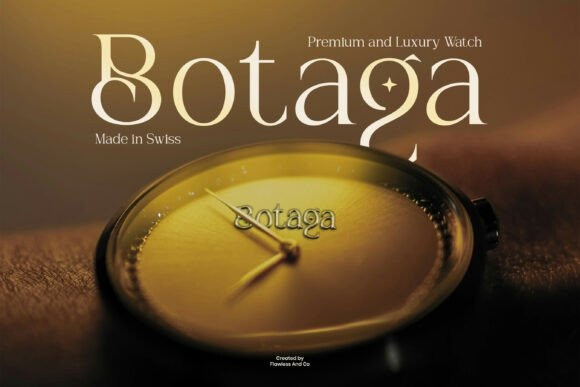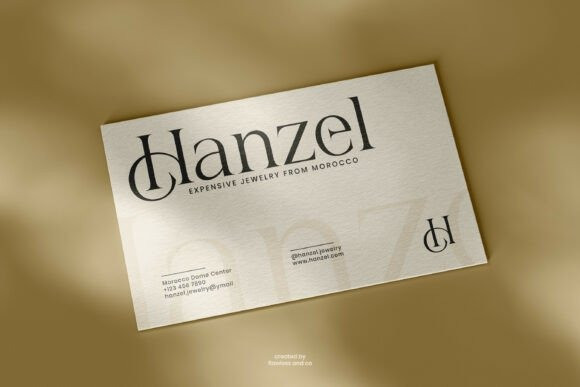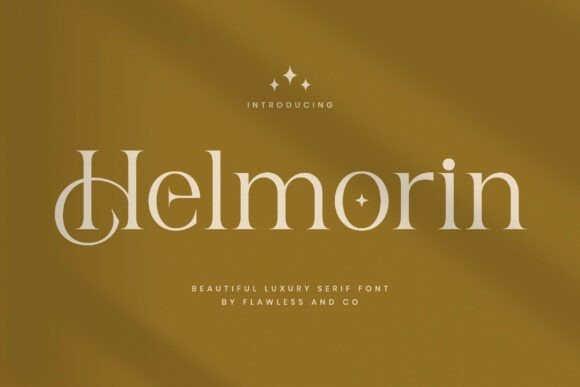
Helmorin Font
HELMORIN FONT  is a refined luxury serif font designed to bring a touch of timeless elegance to every creative project. Featuring graceful curves, distinctive ligatures, and subtle high-contrast strokes, Helmorin embodies sophistication without losing readability. Whether you are creating high-end branding, fashion visual identities, wedding stationery, packaging for luxury goods, editorial layouts, or upscale social media content, Helmorin becomes the ideal typographic signature.